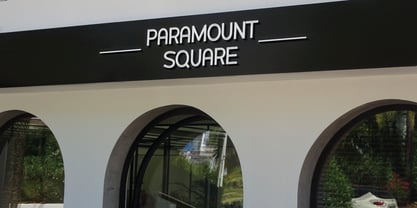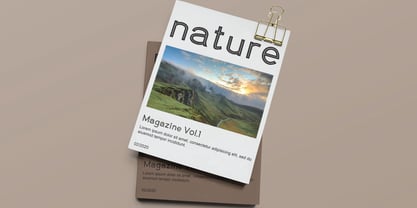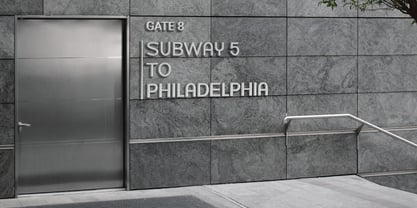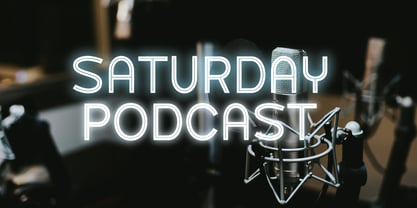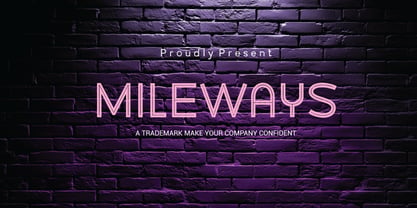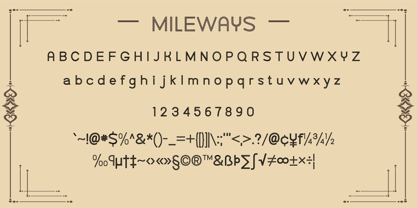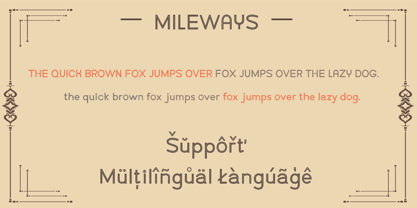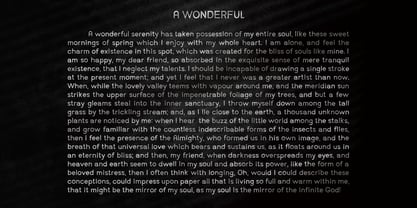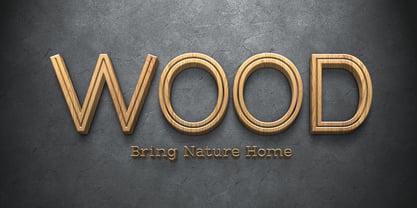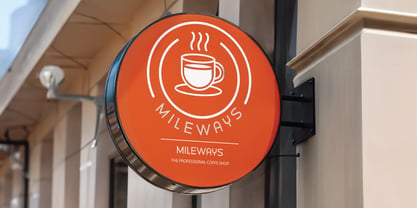
Mileways
La famille de polices Mileways a été conçue par Muhammad Suhery et publiée par Phonnastudio. Mileways contient 1 styles. En savoir plus sur cette famille
Introducing Mileways, a state-of-the-art font featuring a futuristic style that adds a dynamic and contemporary element to your designs. The distinctive symbols, commonly observed in storefronts or on signs conveying messages for various occasions, further enhance its appeal. Mileways is well-suited for a broad spectrum of projects, including logos, headlines, posters, neon signage, t-shirts, and beyond. Its versatile design also makes it an excellent choice for social media posts, labels, and other creative applications.